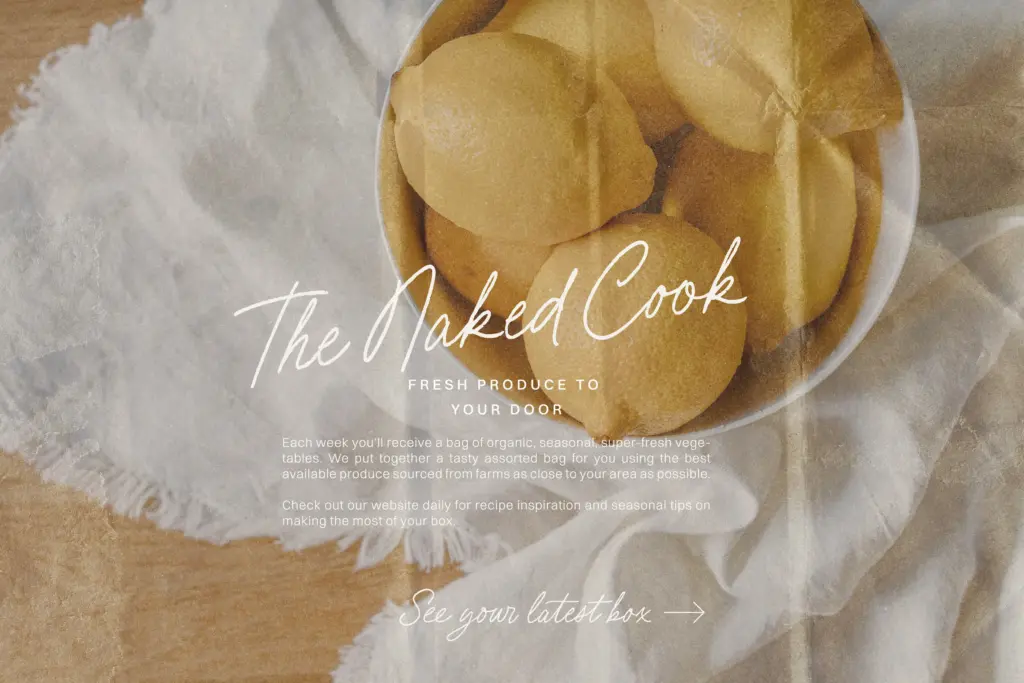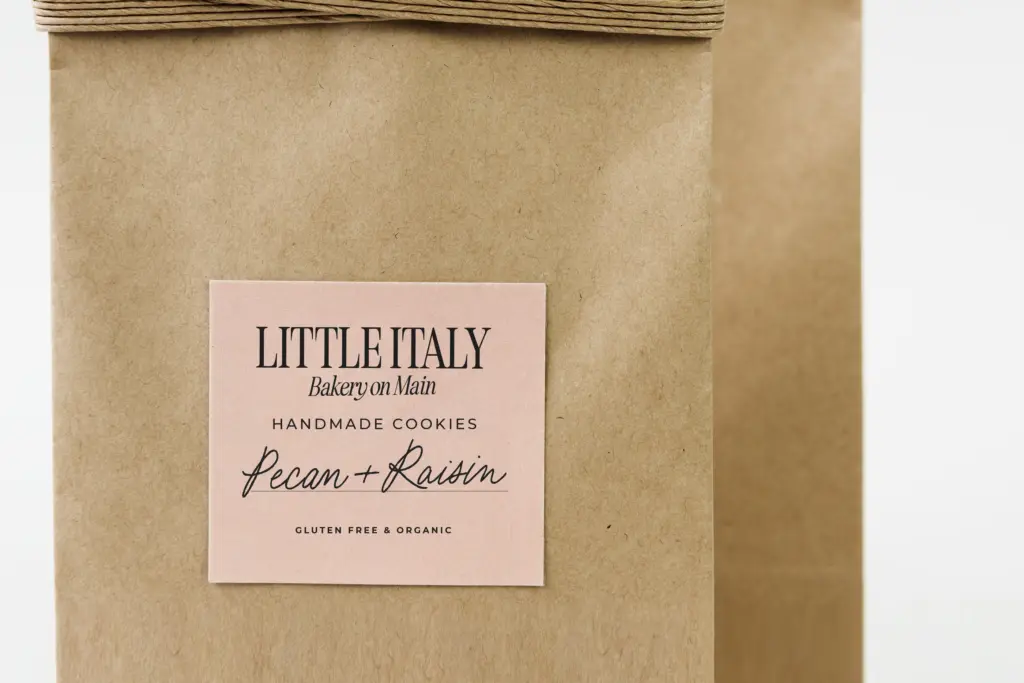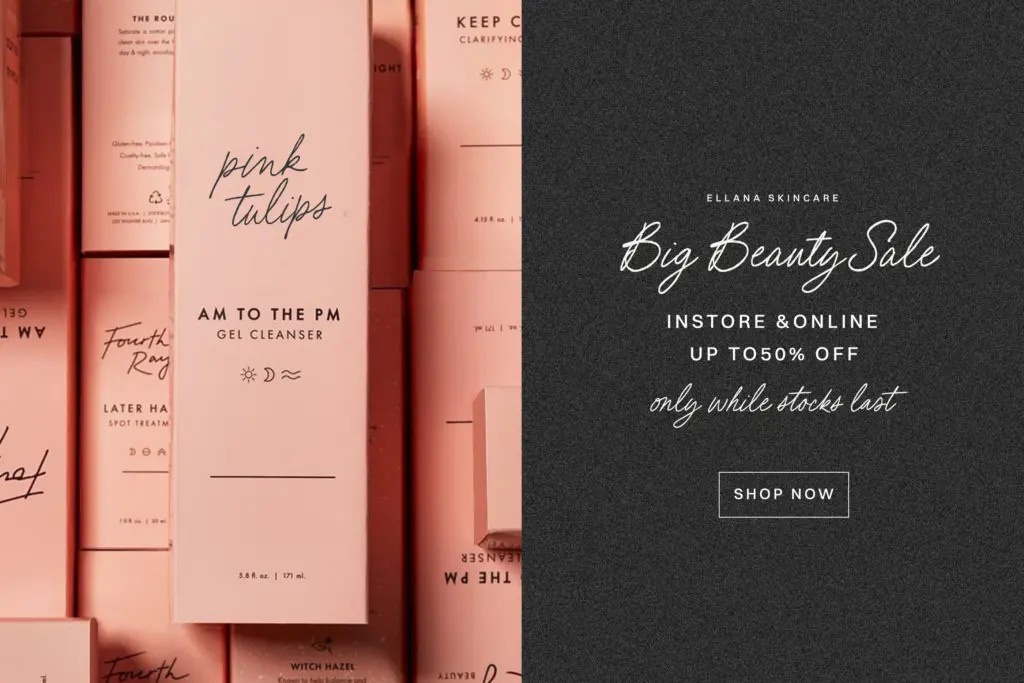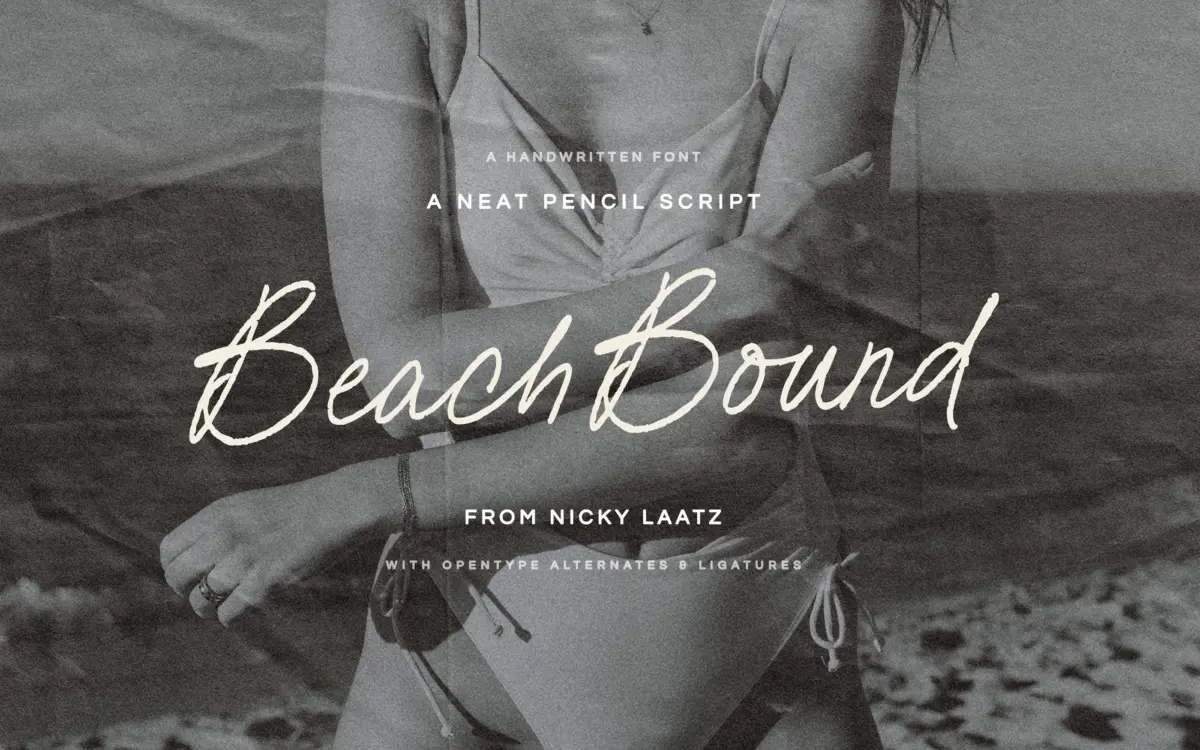
Beach Bound is a pencil script built on a light, slightly textured stroke rather than a smooth brush or pointed-nib line. You can see the pencil in the letterforms: the strokes vary a little in pressure, the joins aren’t perfectly uniform, and the overall texture reads as drawn rather than digitally smoothed. It sits closer to genuine handwriting than to the calligraphic scripts that dominate this category, and that’s really the point of it.
The two weights included give it more range than a single-weight script usually has. The lighter weight is thin and casual, good for a quick note-in-the-margin feel. The heavier weight holds up better at small sizes and in printed applications where a hairline stroke would otherwise break up or disappear. Neither weight is heavy in the bold-script sense — this is not a face built for impact-driven headlines.
Letterforms lean informal and a little loose, with connections between letters that don’t try too hard to look continuous. That looseness is a style choice: it reads as unforced, unpolished handwriting rather than a script chasing elegance. Designers wanting a tightly calligraphic or bridal-style script should look elsewhere; this one is closer to a beach shack sign than a formal invitation suite.
The font includes OpenType ligatures and alternate letters, which need to be switched on manually in software that supports the feature — Photoshop, Illustrator, InDesign and similar. Without turning these on, the script reads flatter and more mechanically repetitive, so this is a font that rewards a bit of setup time rather than working well straight out of the box. The seller notes Canva compatibility, though Canva’s OpenType support is limited compared to the full Adobe suite, so alternates and ligatures may not all trigger there.
Language support covers a reasonable spread of Western European languages plus a handful of others, useful if the brief runs beyond English-only copy. There’s no mention of extended character sets for non-Latin scripts, so treat this as a Latin-alphabet tool.
This is a font for short bursts of text — logotypes, product labels, packaging call-outs, social graphics, and signage that wants a hand-written, approachable tone. The pencil texture works particularly well on beach, travel, wellness or lifestyle branding where a slick script would feel too formal. It’s less suited to long passages of text; the looseness and irregular joins that make it charming at short lengths become fatiguing to read in a paragraph.
Pair the lighter weight with generous white space so the thin strokes don’t get lost, and reserve the bolder weight for anything printed small or reproduced at low resolution. With the alternates activated, it can do double duty as both a logo mark and supporting script text within the same brand system, provided the software being used actually supports the OpenType features it depends on.
- Genuine pencil texture that avoids the overly smooth look common in script fonts
- Two weights extend its use from delicate accents to more legible small-size settings
- OpenType ligatures and alternates add variation once properly activated
- Loose, informal joins make it tiring to read at paragraph length
- Alternate features may not fully trigger in software with limited OpenType support, including some Canva contexts
Beach Bound delivers a convincingly hand-drawn pencil texture and enough range across two weights to cover logo and label work. It's not built for long text or formal occasions, and its best features depend on software that actually supports OpenType alternates.